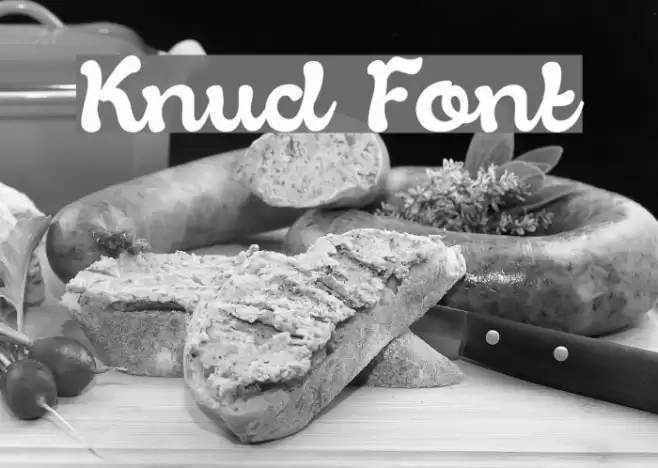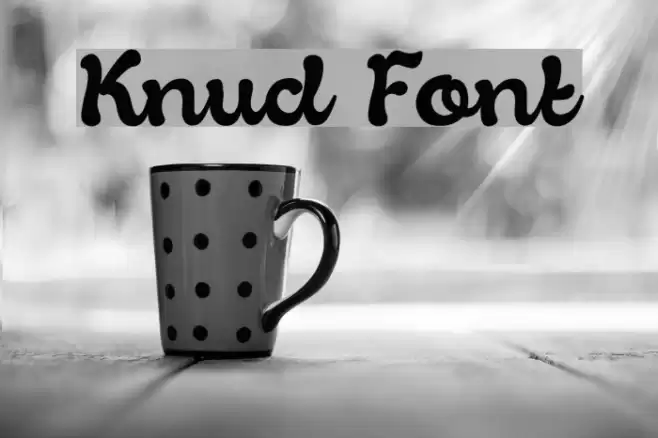
Knud Font
Knud Description
This font features a bold, playful script style with a handwritten appearance. The characters are rounded and connected, giving it a flowing and dynamic look. The uppercase letters maintain a consistent height, while the lowercase letters exhibit a slight slant, adding to the casual and friendly feel. The numerals are equally bold and rounded, ensuring readability. Special characters are designed to match the overall aesthetic, with smooth curves and a cohesive style. This font is ideal for projects that require a personal touch or a sense of whimsy.
A bold, playful script font with a handwritten, flowing style from Uncategorized fonts.
- Proposed Projects: Greeting cards, invitations, playful branding, children's books, and social media graphics.
- Overall Style: Playful, Casual
- Use Case: Logos, Headlines, Invitations